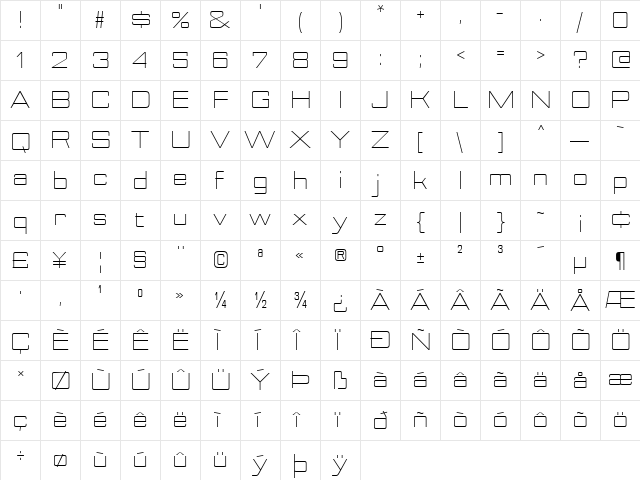
Nesobrite Semi-Expanded Light
Design Context for Nesobrite Typeface
Nesobrite offers clean, dependable letterforms without strong stylistic allegiance, making it a practical choice for designers who need flexibility. The delicate stroke weight brings airiness and refinement to layouts.
Pro Tip: Pair Nesobrite with a font of contrasting weight or personality to build a more expressive typographic hierarchy.